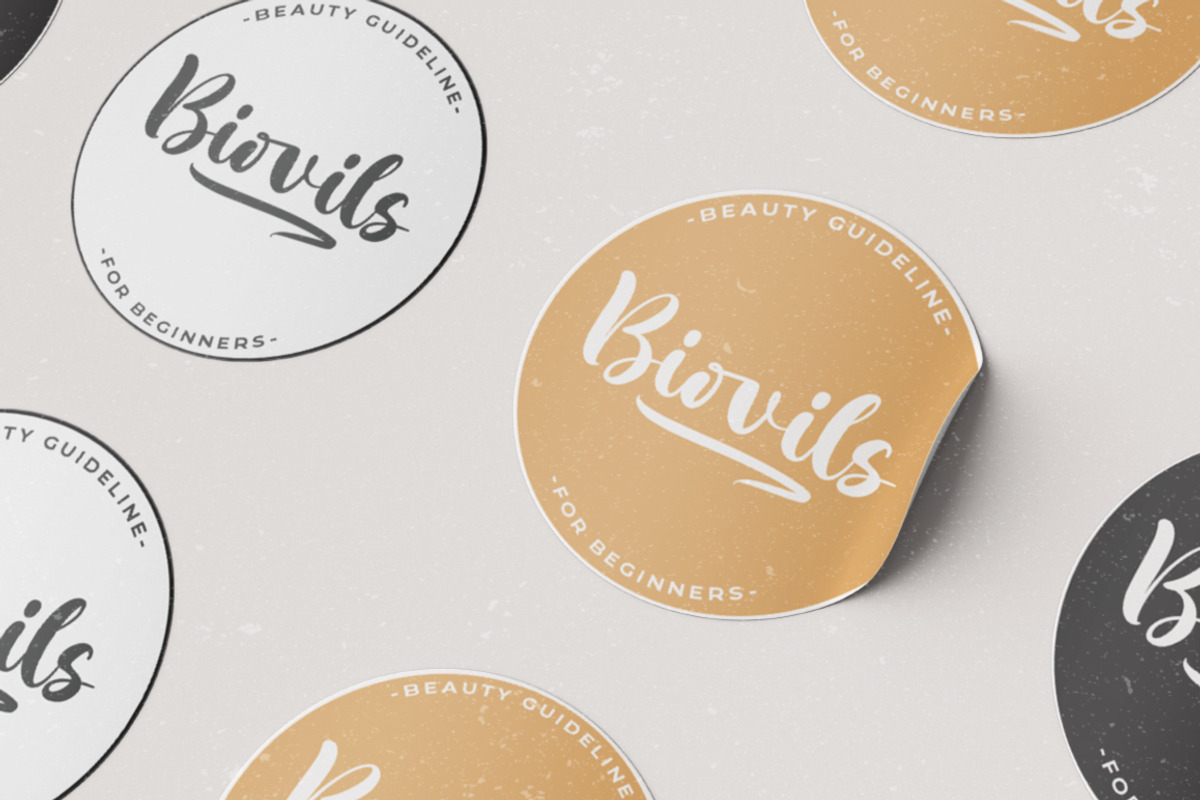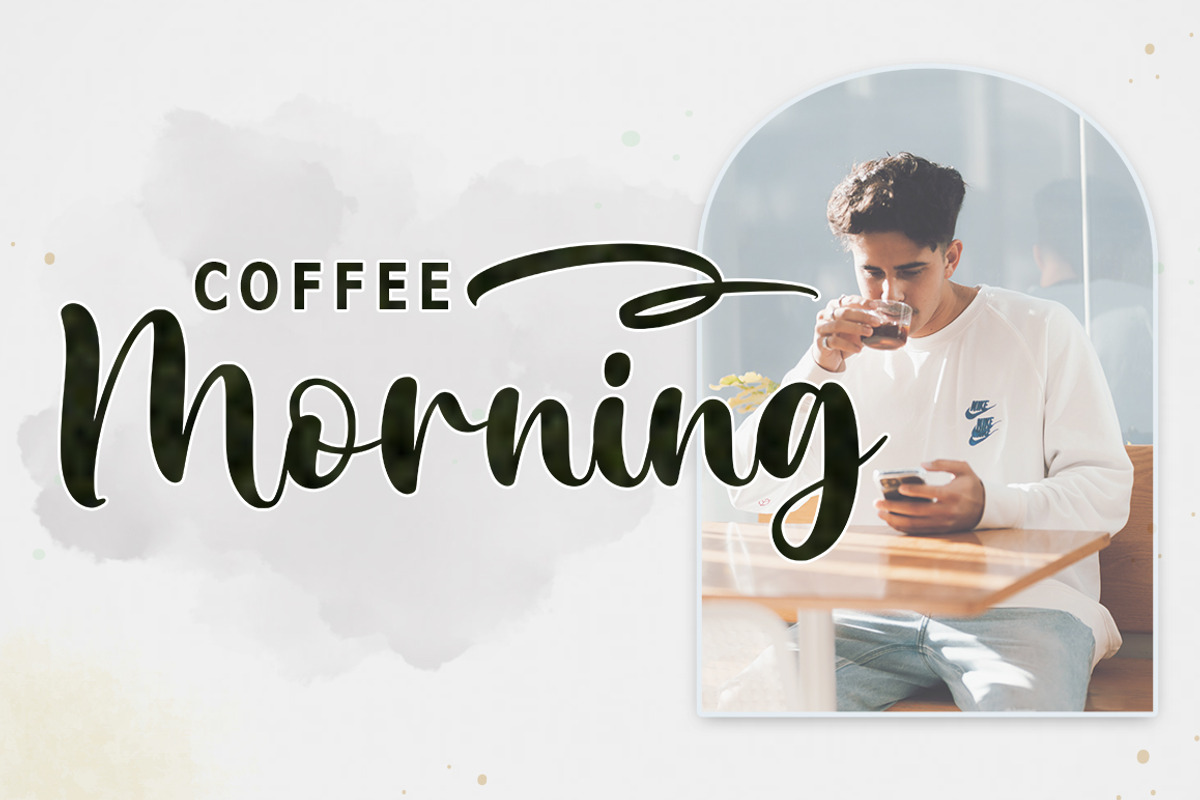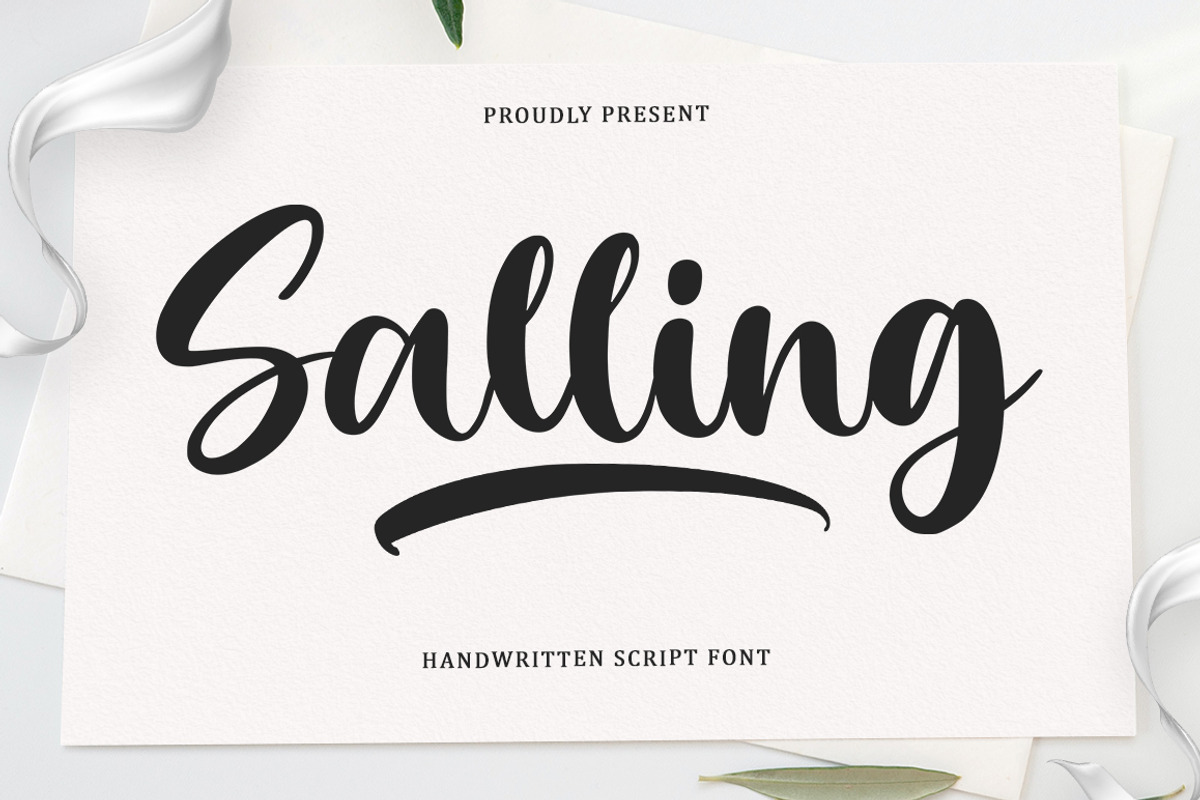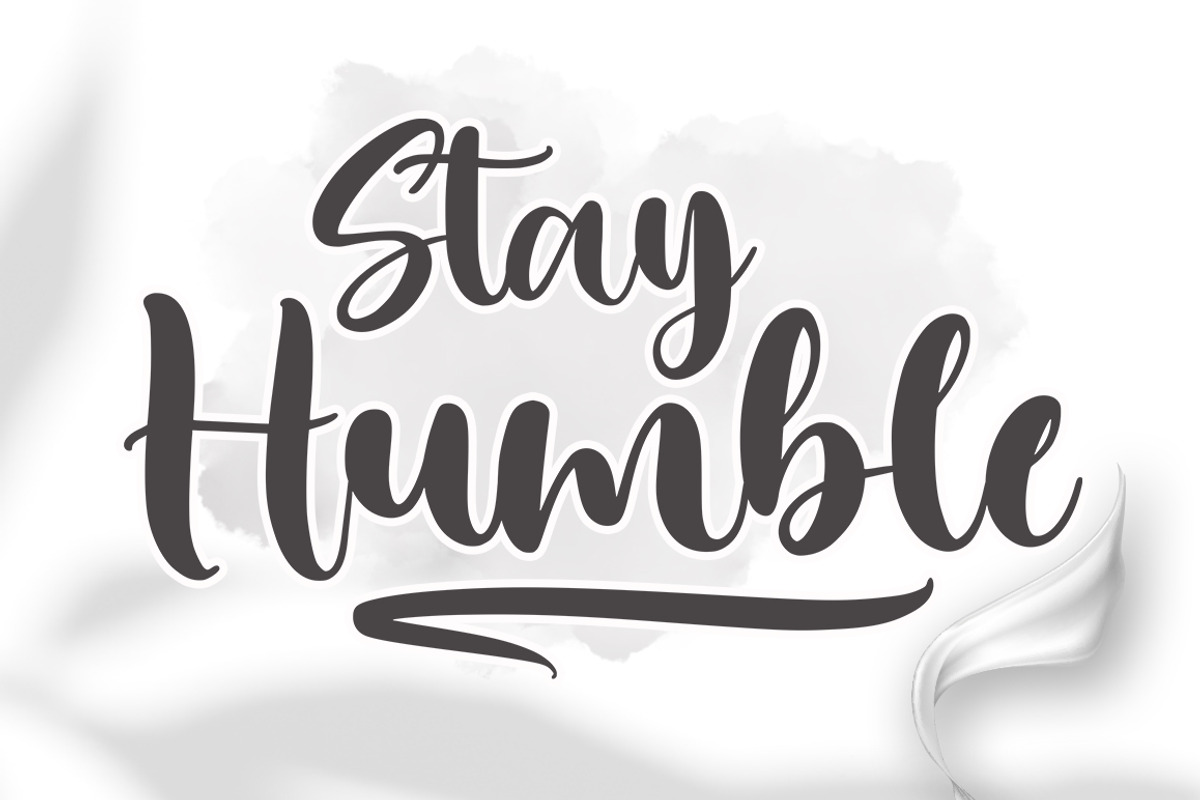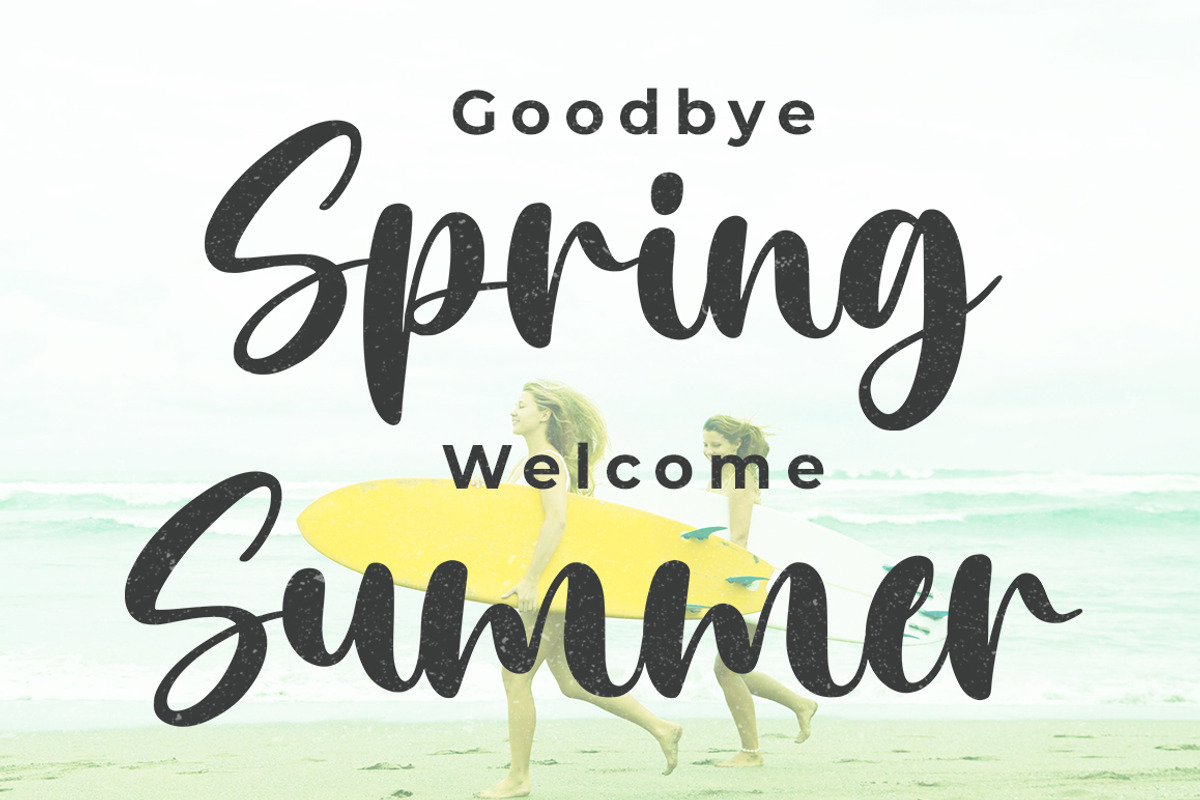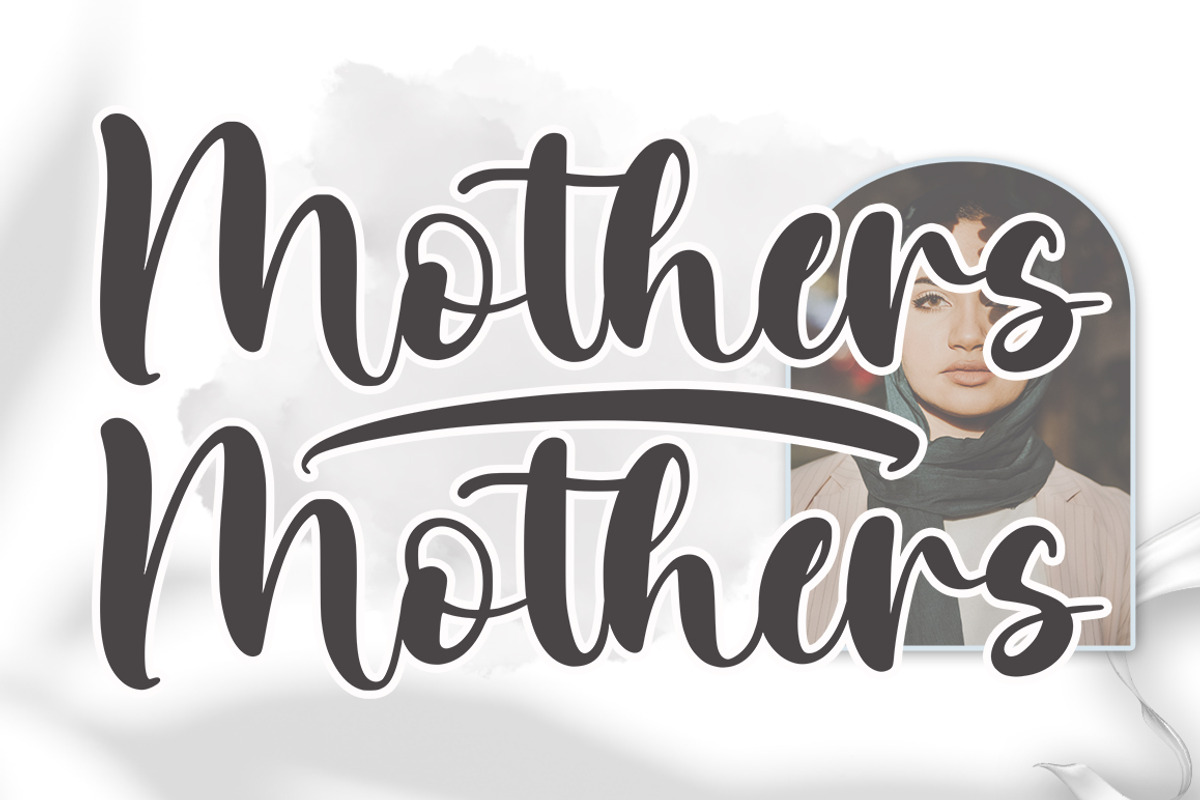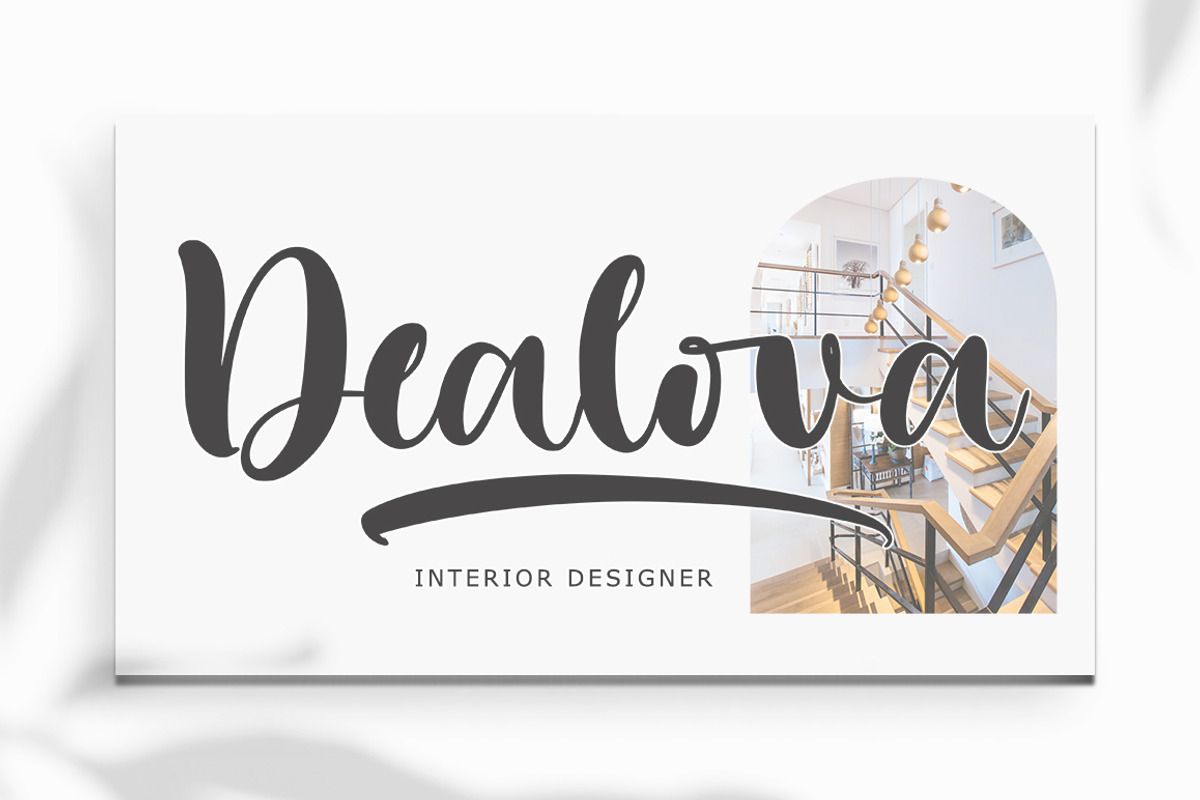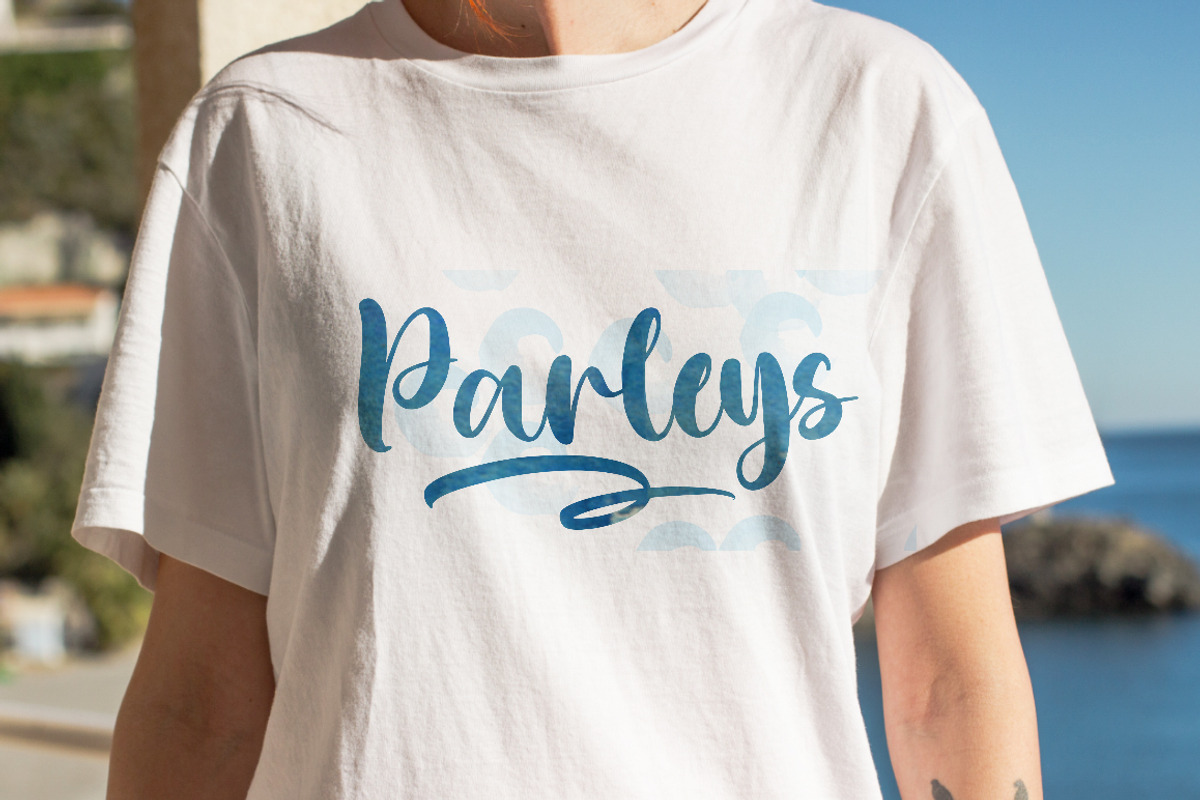
Salling Script
Salling Script is handwritten font with a modern calligraphy feel.
Salling Script is perfect for modern projects, headings, blogs, logos, brandings, invitations and more!
The font includes multiple language support.